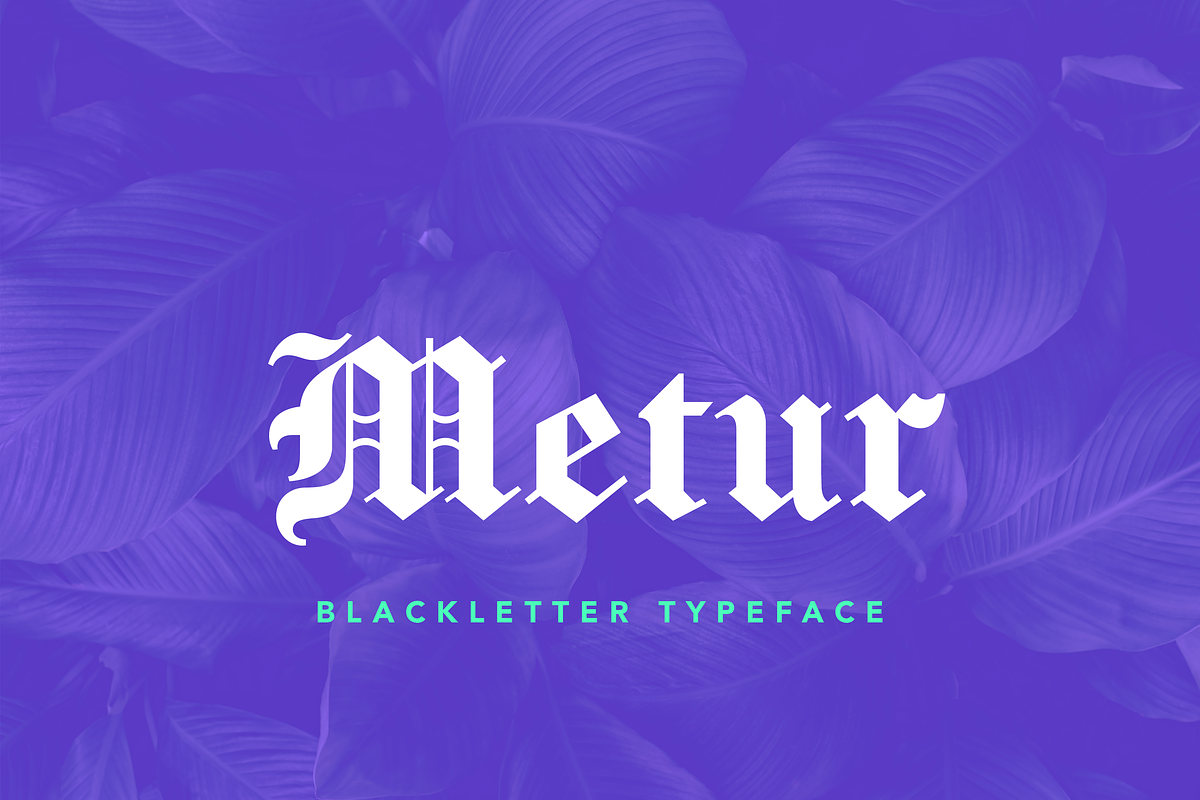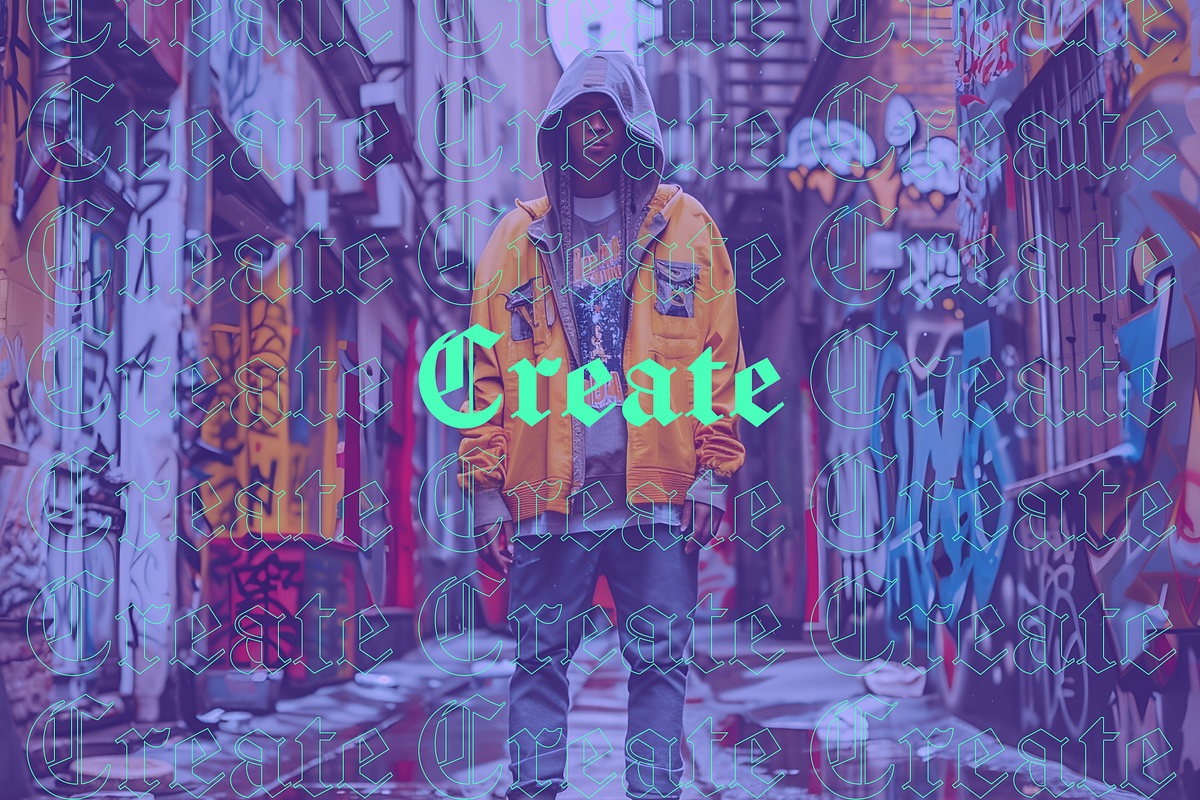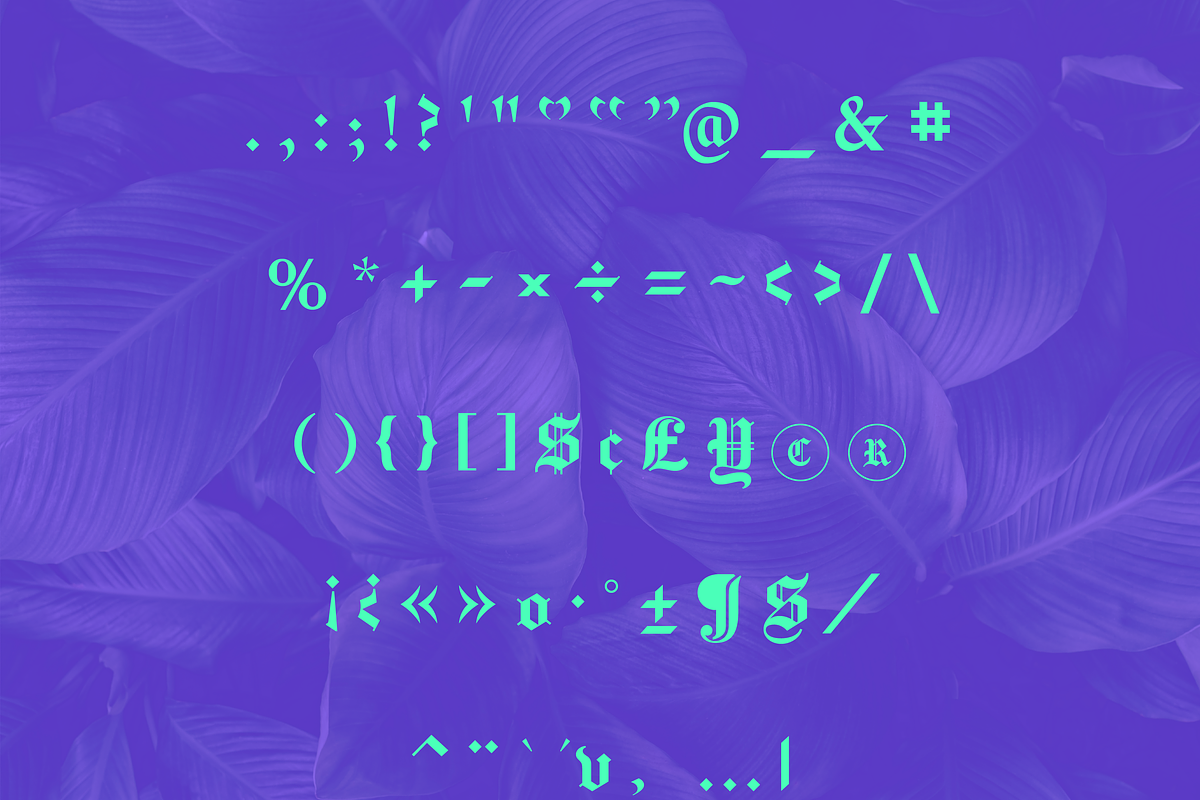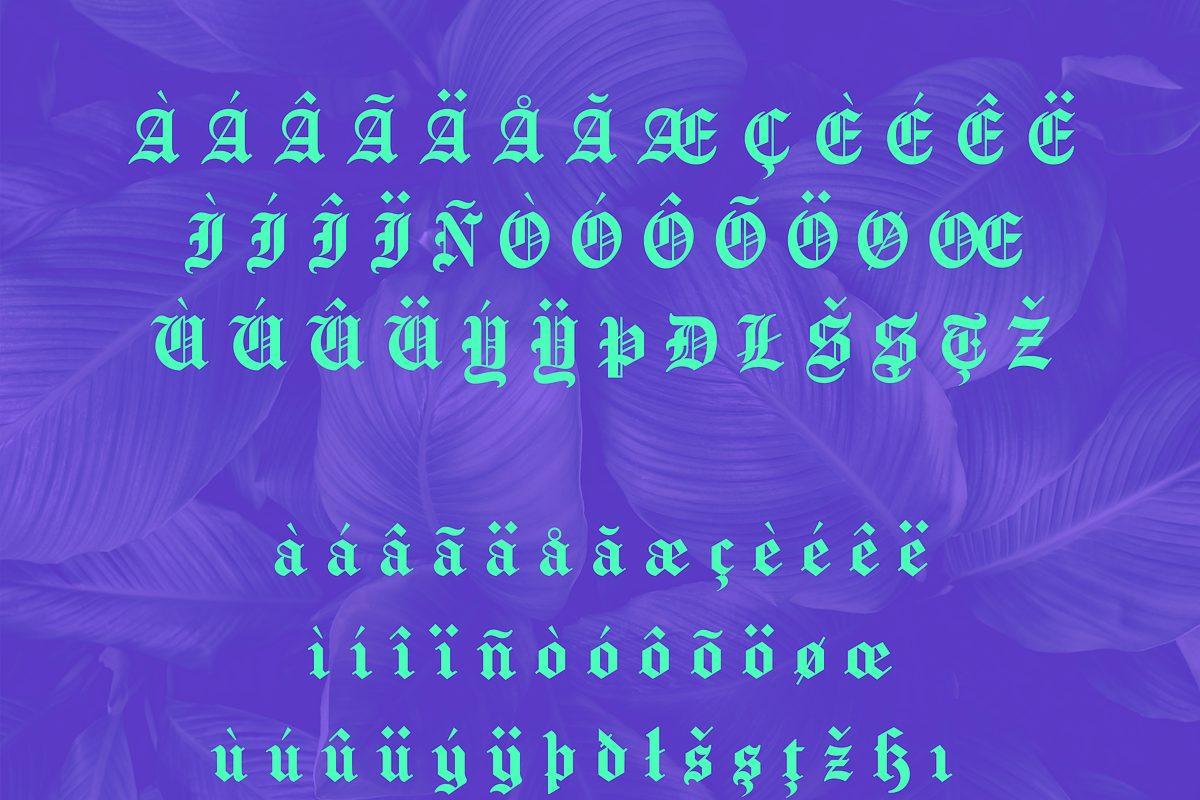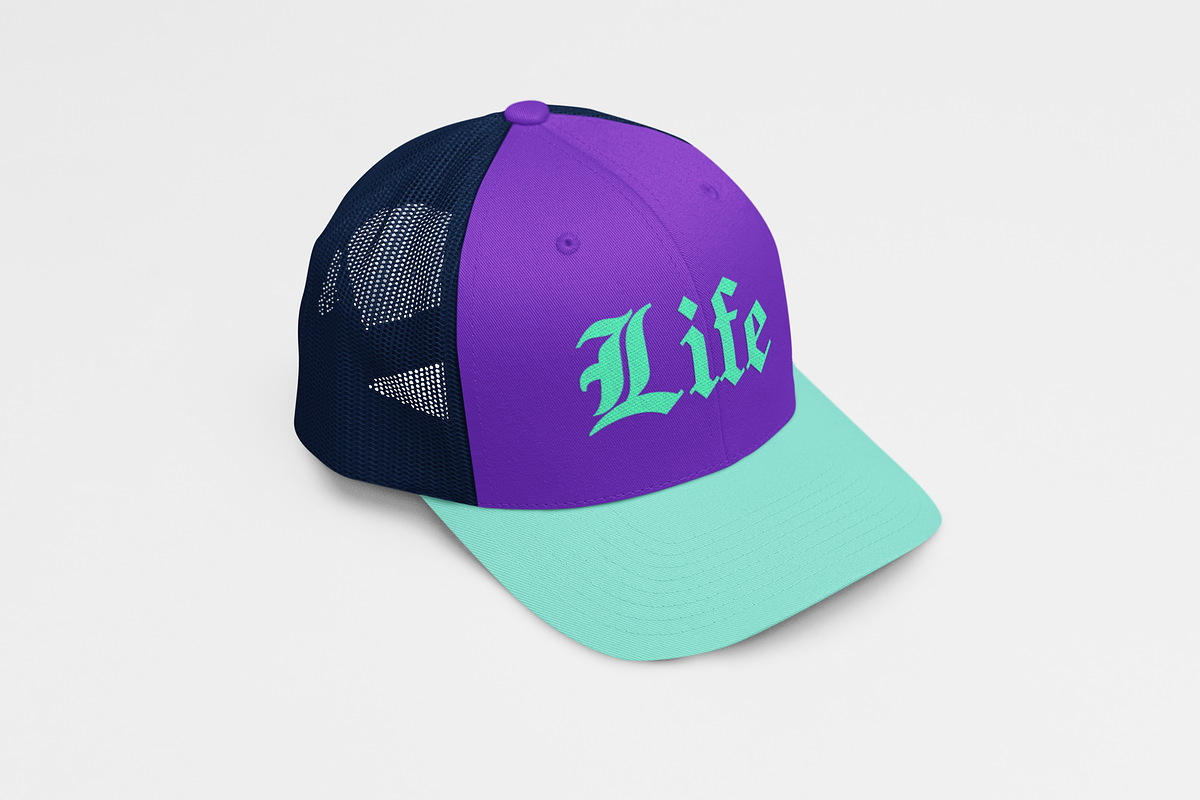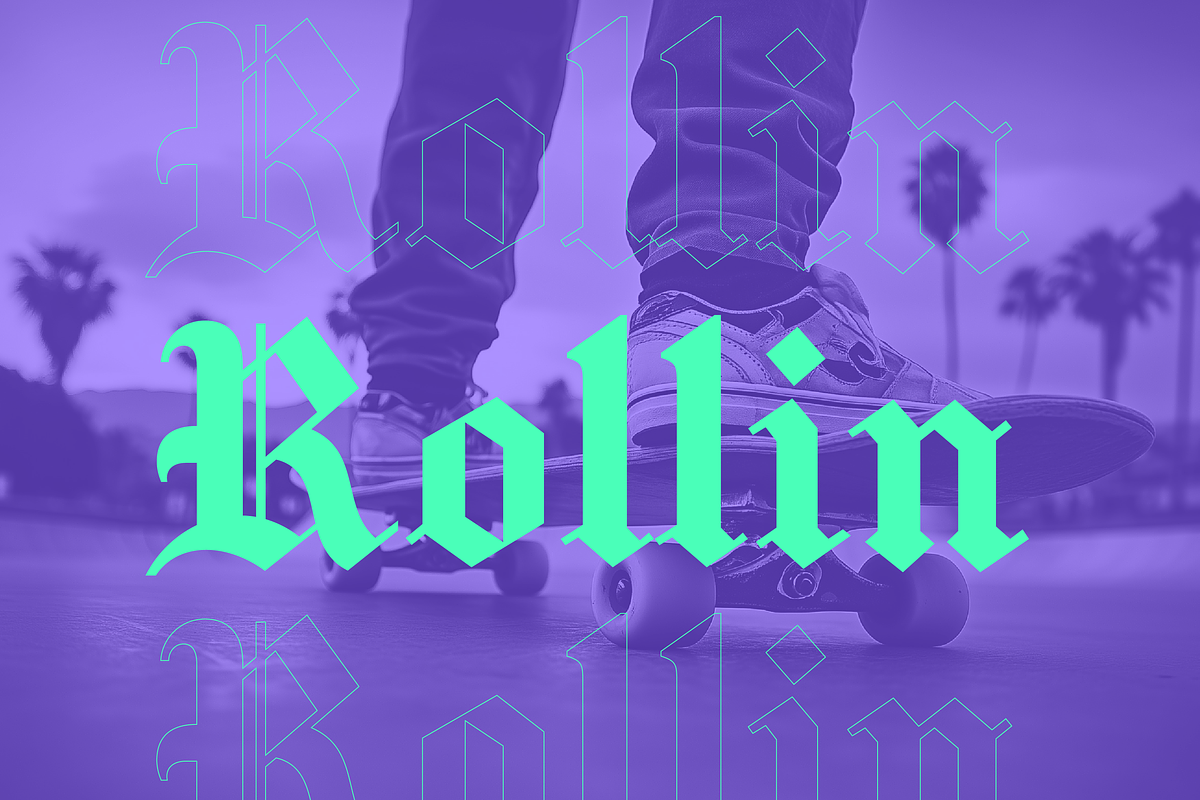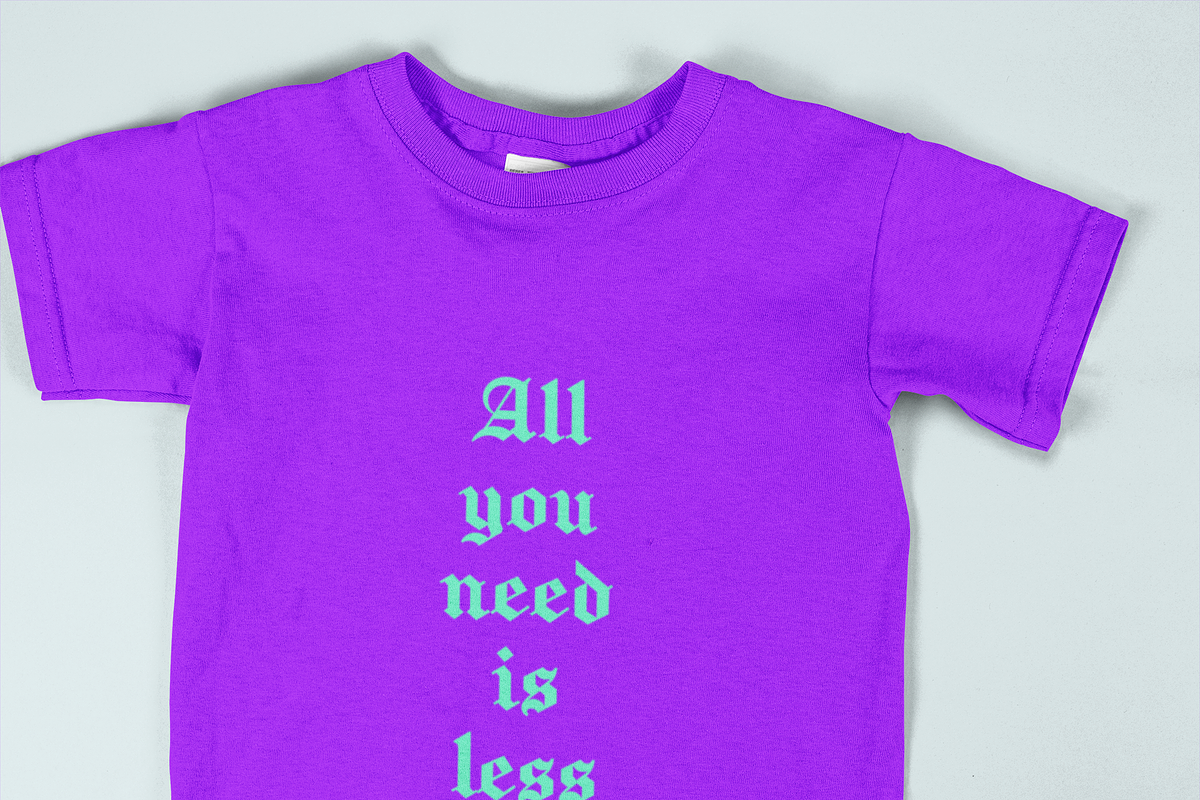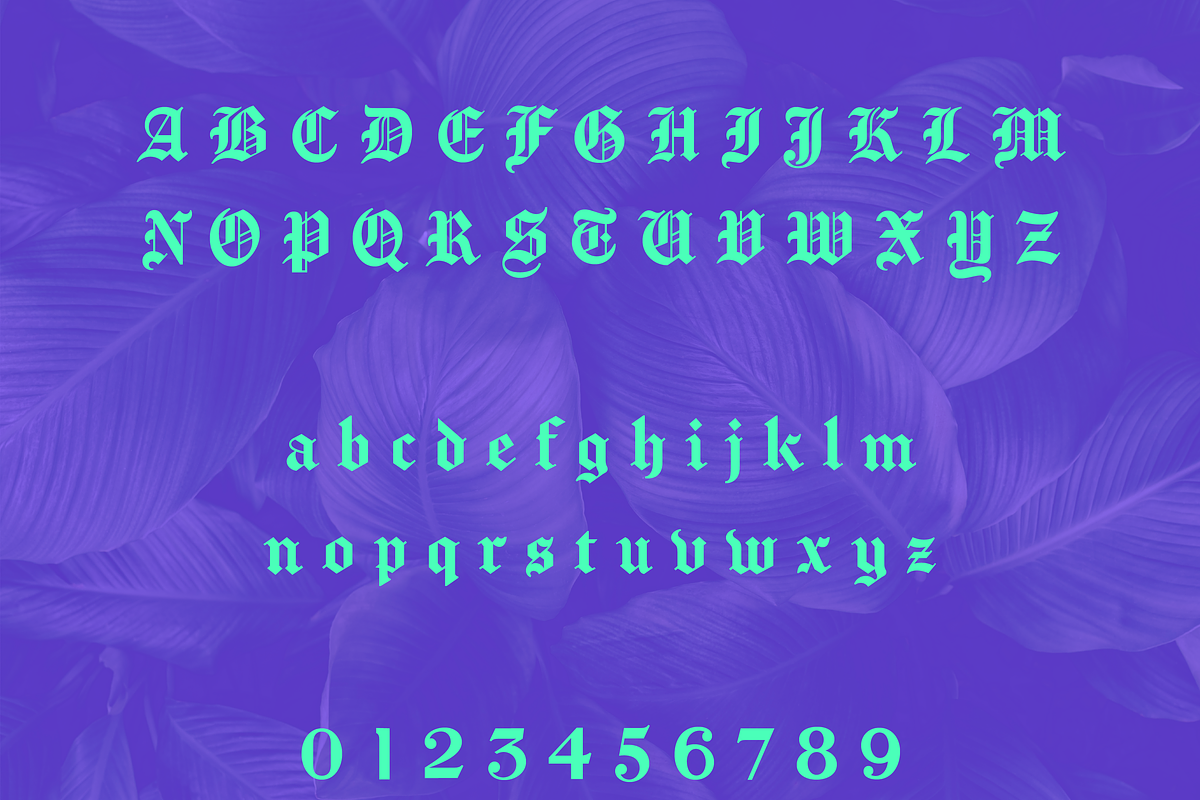
Metur Blackletter Font
Metur – A Bold Newspaper Blackletter Display Typeface
Metur is a striking blackletter display typeface inspired by the bold, authoritative style of traditional newspaper headlines. Its sharp angles and strong, structured letterforms create a sense of power and sophistication, making it perfect for projects that demand attention.